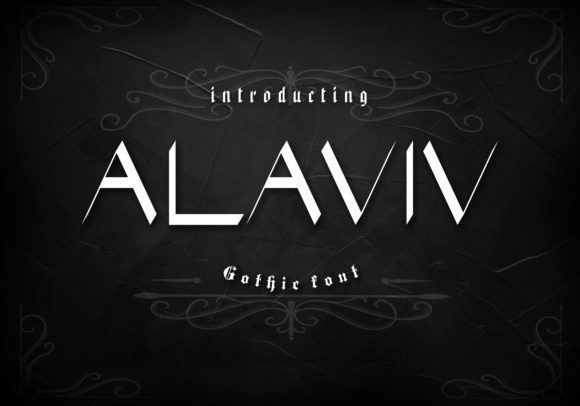
The Alaviv Font: Elevate Your Design with Elegance and Modernity
I’ll never forget the moment I stumbled upon the perfect font for a client’s branding project. It was as if the stars aligned, and my design worries disappeared. The font was Alaviv, a modern, all-caps display font that instantly gave the project a sleek, contemporary look. If you’re a designer, crafter, or creative hobbyist looking to elevate your designs, you’re in the right place. Let’s dive into the world of Alaviv and explore what makes it a game-changer.
A Personal Review: What I Love About Alaviv
Here’s what makes Alaviv a standout font:
- ✨ Clean and modern design: Alaviv’s sleek lines and curves make it perfect for contemporary design styles.
- ✅ Elegant and sophisticated: This font exudes luxury and refinement, making it ideal for high-end branding and designs.
- 💡 Highly versatile: Alaviv can be used for a wide range of applications, from logos and headlines to posters and social media graphics.
While Alaviv is an excellent font, there are a few things to keep in mind:
- 🤔 Limited use in body text: As an all-caps display font, Alaviv might not be the best choice for lengthy body text. It’s perfect for headlines and titles, but you may want to pair it with a complementary font for longer content.
- ⚠️ Glyph support: While Alaviv has a wide range of glyphs, some users have reported issues with certain special characters. Be sure to test the font with your specific design needs.
- Experiment with OpenType features, such as stylistic alternates and glyphs, to add visual interest to your design.
- Explore OpenType features, such as swashes and ligatures, to add a creative touch to your design.
The Story Behind Alaviv
Alaviv was designed with the modern designer in mind. Its creator, a renowned typographer, aimed to craft a font that would be both elegant and versatile. Inspired by the sleek lines and curves of contemporary design, Alaviv was born. The font’s name, Alaviv, reflects its purpose: to bring a touch of elegance and sophistication to any design.
| What is Alaviv’s primary use? | Alaviv is a display font, ideal for headlines, titles, and short text passages. |
| Does Alaviv support OpenType features? | Yes, Alaviv supports various OpenType features, including stylistic alternates, glyphs, and swashes. |